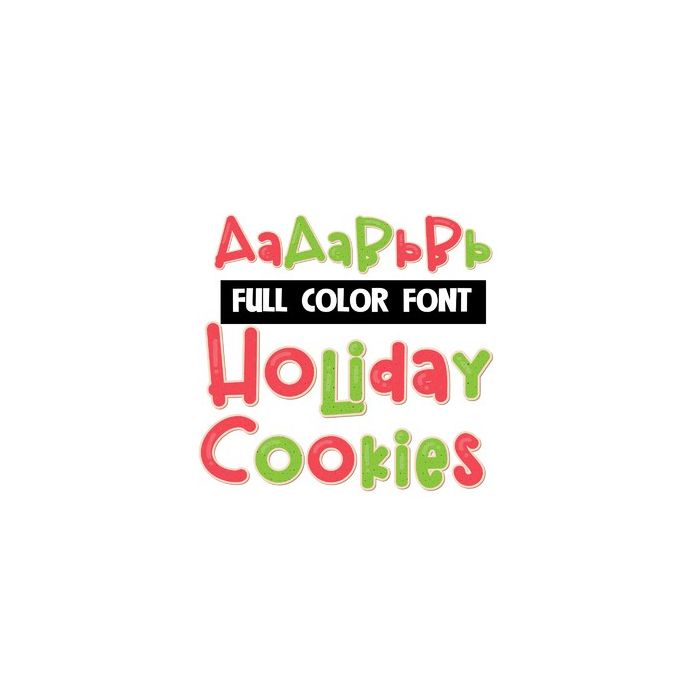
This full-color font features Christmas-colored frosting and sugar on little cookies. There is a an alt version w/ secondary colors available through your system's or Silhouette's glyph map.